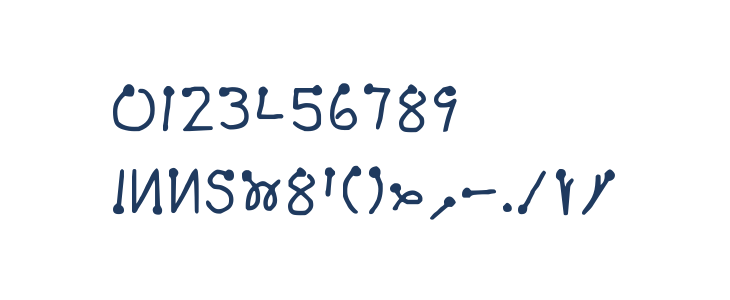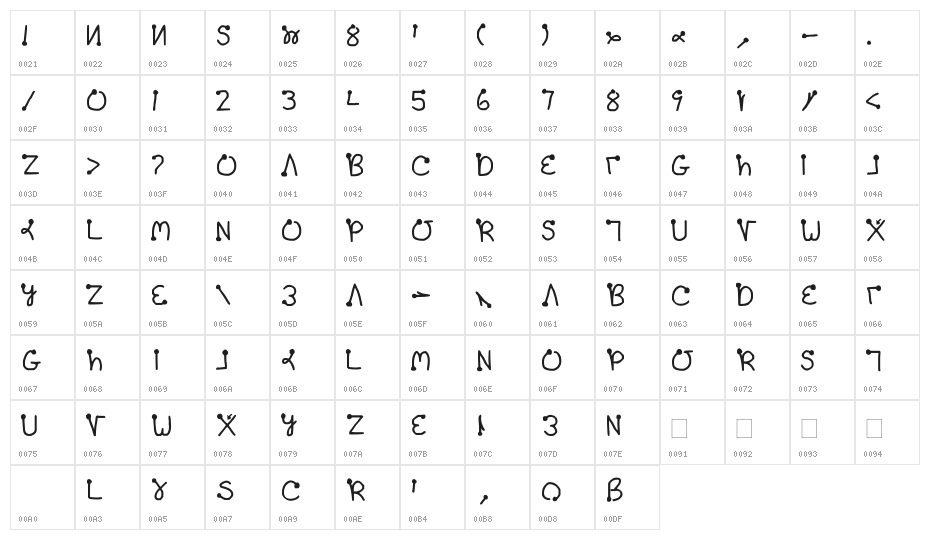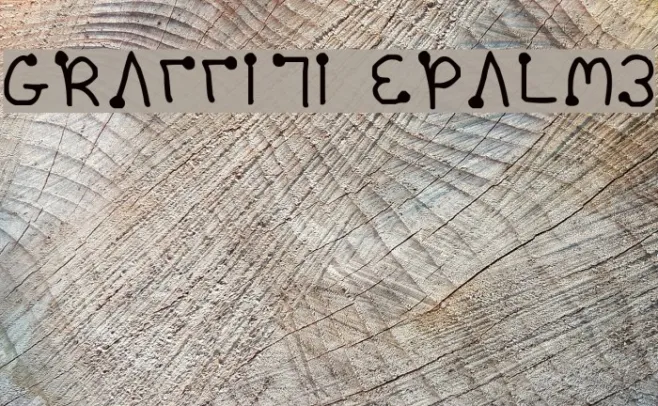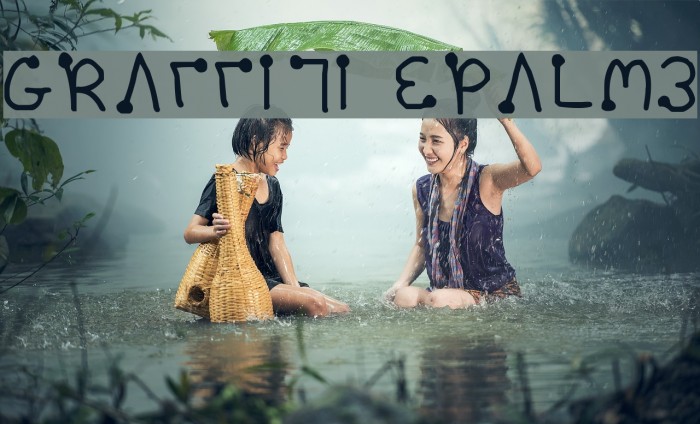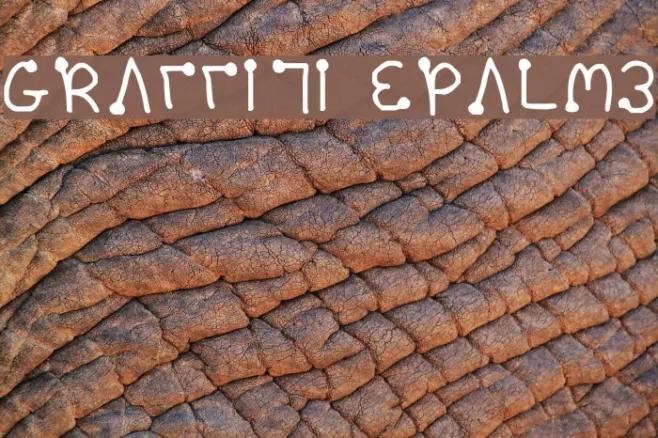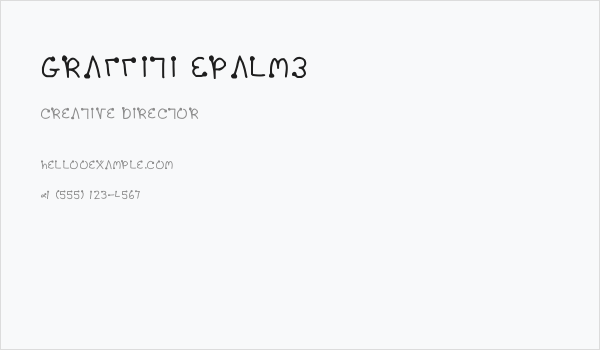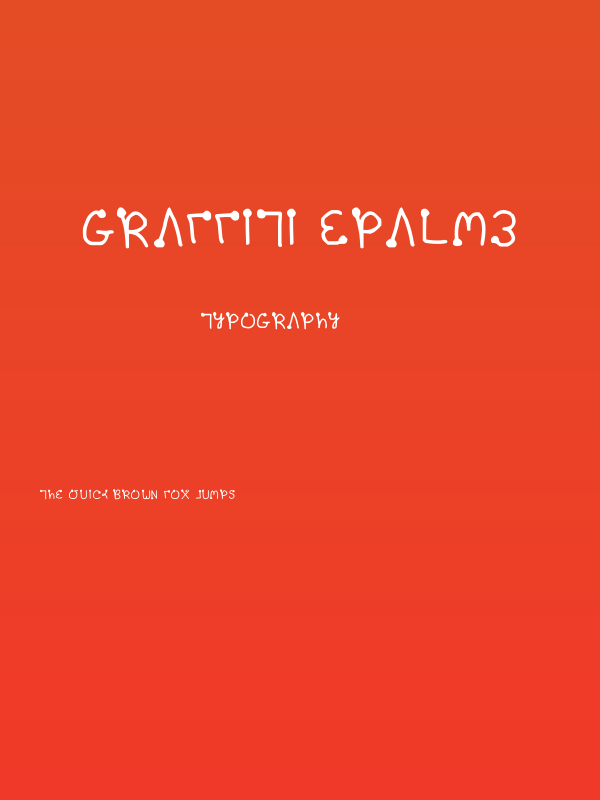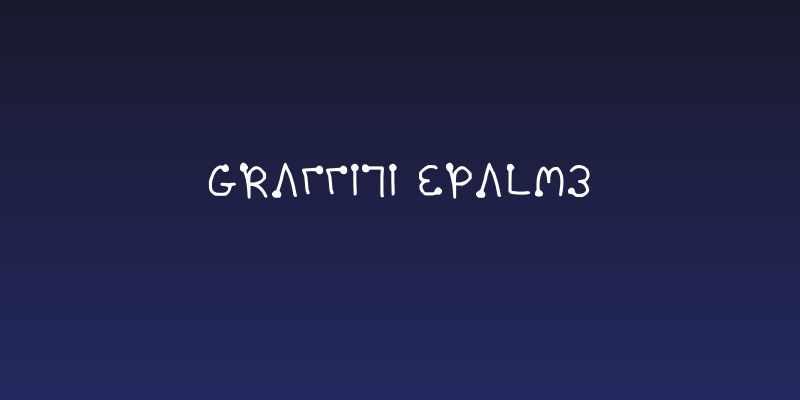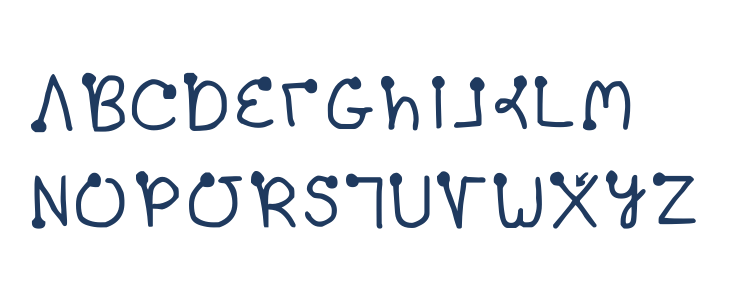
Graffiti [Palm] Font
Graffiti [Palm] Description
This font features a playful and artistic style, reminiscent of graffiti art. Each character is crafted with a unique flair, incorporating rounded edges and bold strokes that give it a lively and dynamic appearance. The letters are adorned with small, circular accents at the ends of strokes, adding a whimsical touch. The overall design is informal and expressive, making it ideal for creative projects that require a fun and engaging typeface. The numbers and special characters maintain the same energetic style, ensuring consistency across all elements.
| Proposed Projects | Ideal for street art designs, youth-oriented branding, event posters, and creative social media graphics. |